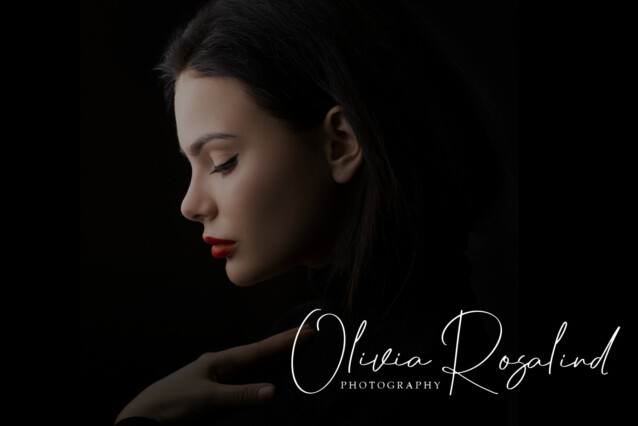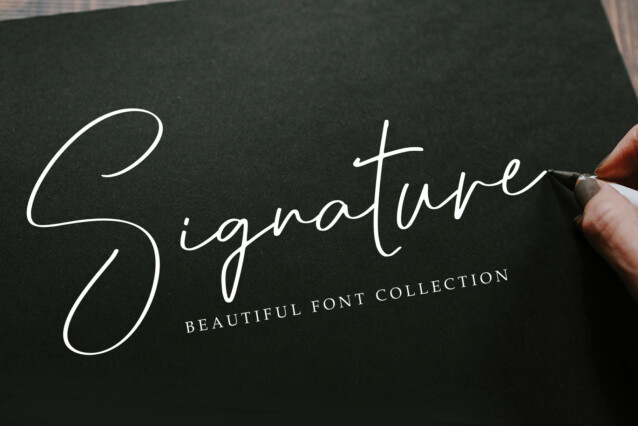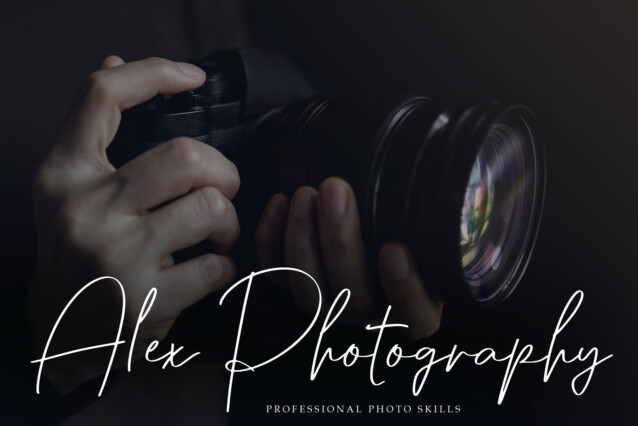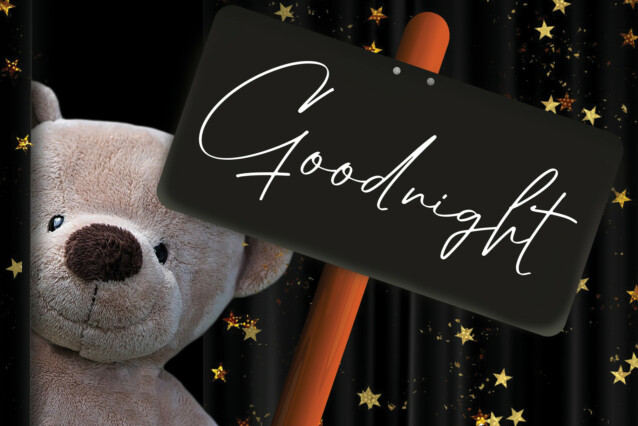
Vintage Farmhouse Script Font
Vintage Farmhouse Script Font is a flowing handwritten font, described by an elegant touch, perfect for your favorite projects. Fall in love with its incredibly distinct and timeless style and use it to create spectacular designs!